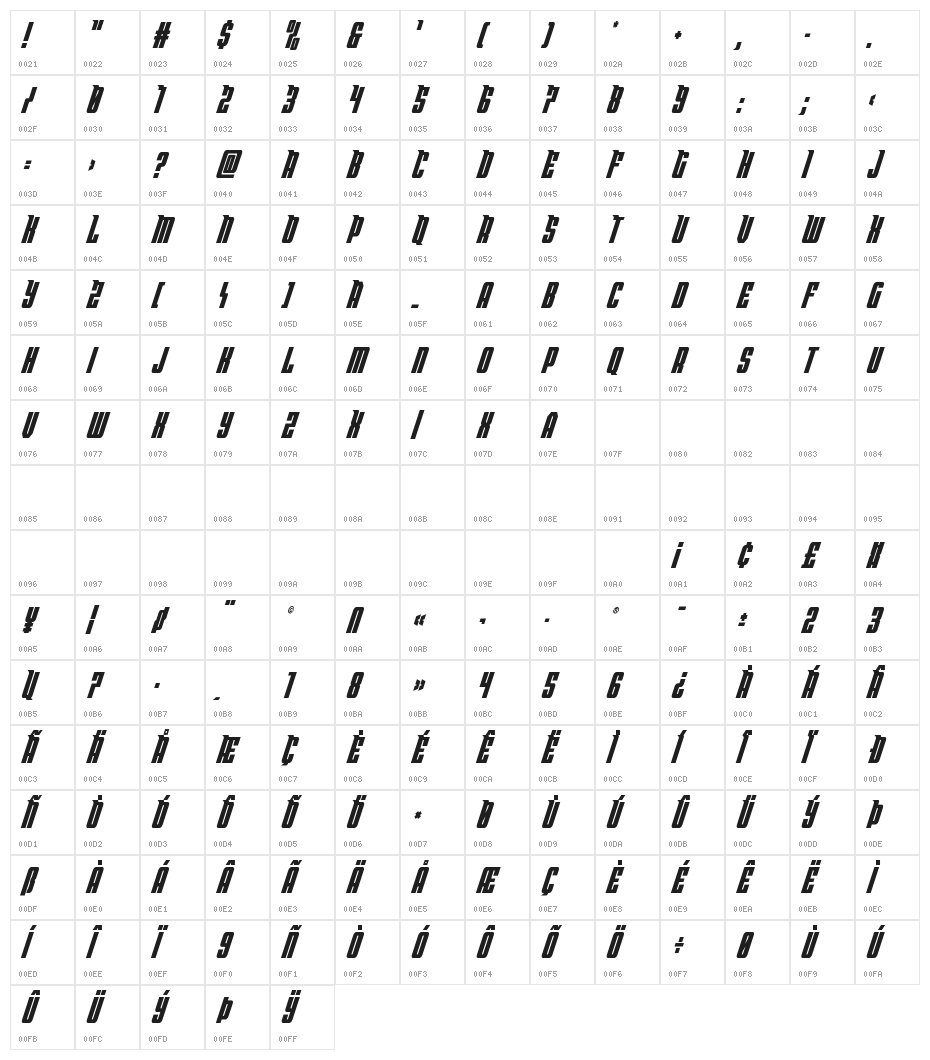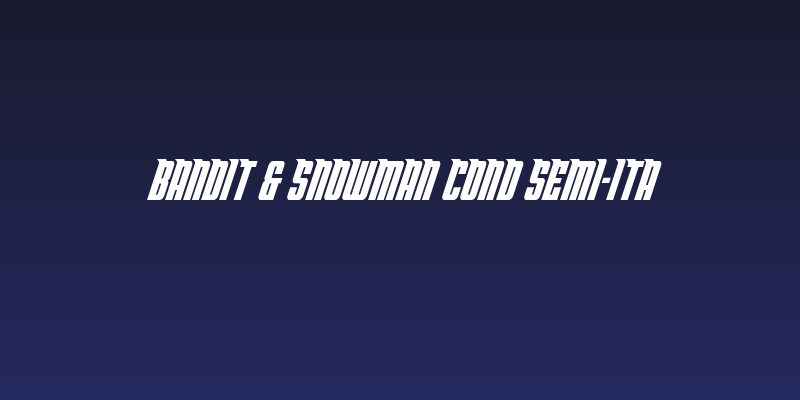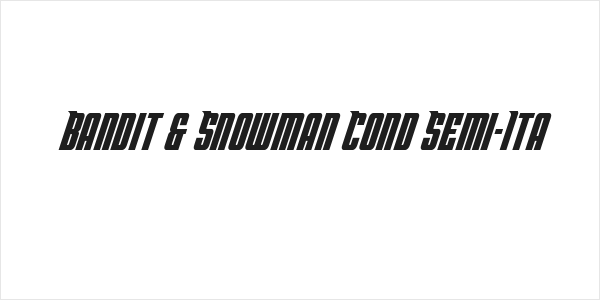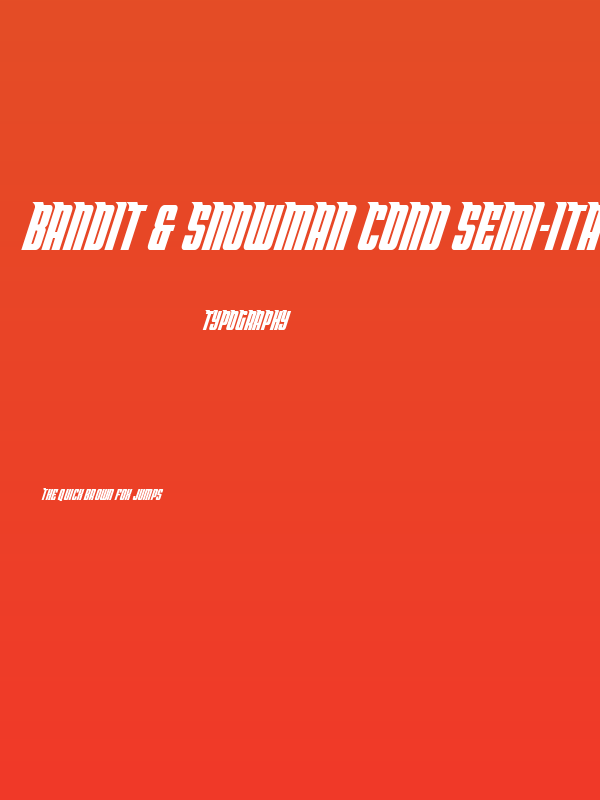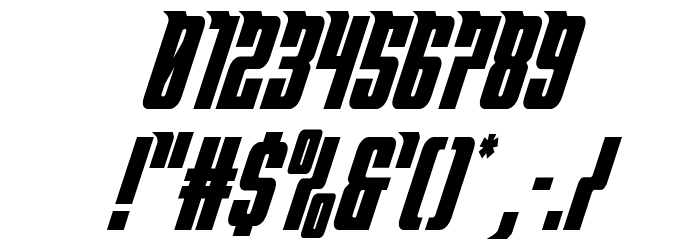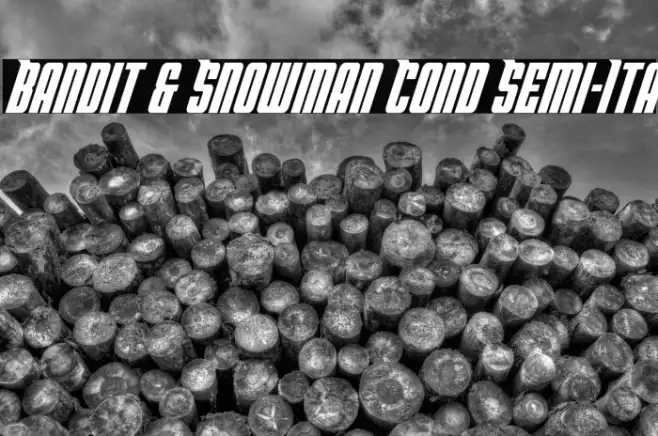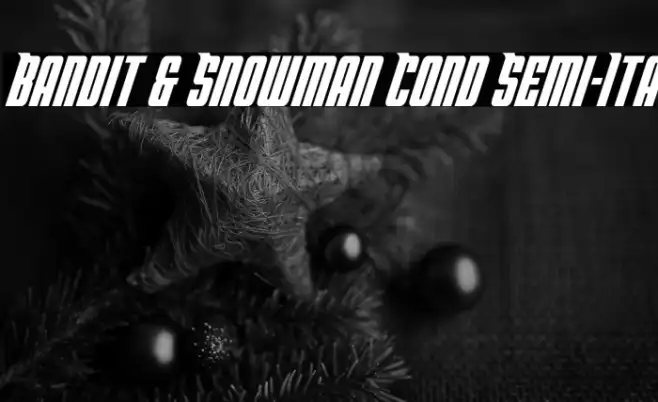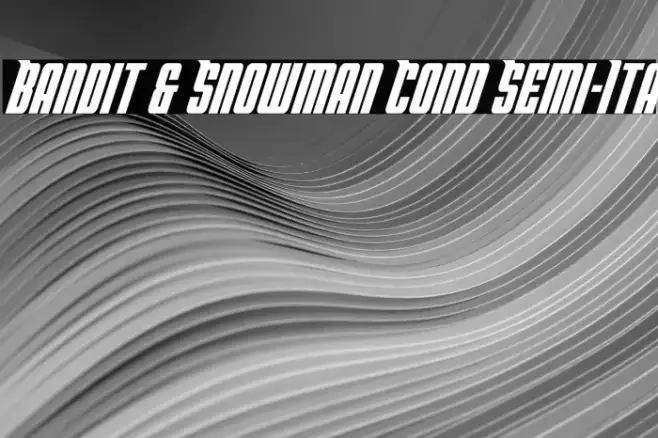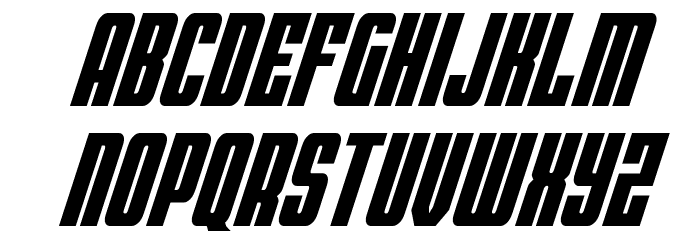
Bandit & Snowman Cond Semi-Ita Font
Bandit & Snowman Cond Semi-Ita Description
This font features a bold and dynamic design with a condensed width and a semi-italic slant, giving it a sense of motion and urgency. The characters are tightly spaced, enhancing its compact appearance. The strokes are thick, providing a high contrast that makes the letters stand out prominently. This style is reminiscent of modern display fonts, often used to grab attention with its assertive and impactful presence. The uppercase and lowercase letters maintain a consistent style, with sharp angles and clean lines, making it suitable for a variety of bold applications.
| Proposed Projects | Ideal for sports branding, action movie posters, dynamic advertisements, and bold headlines. |